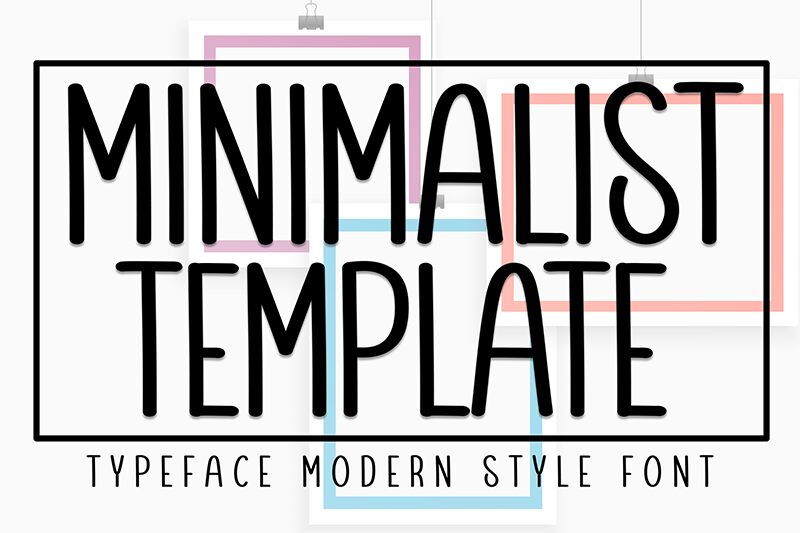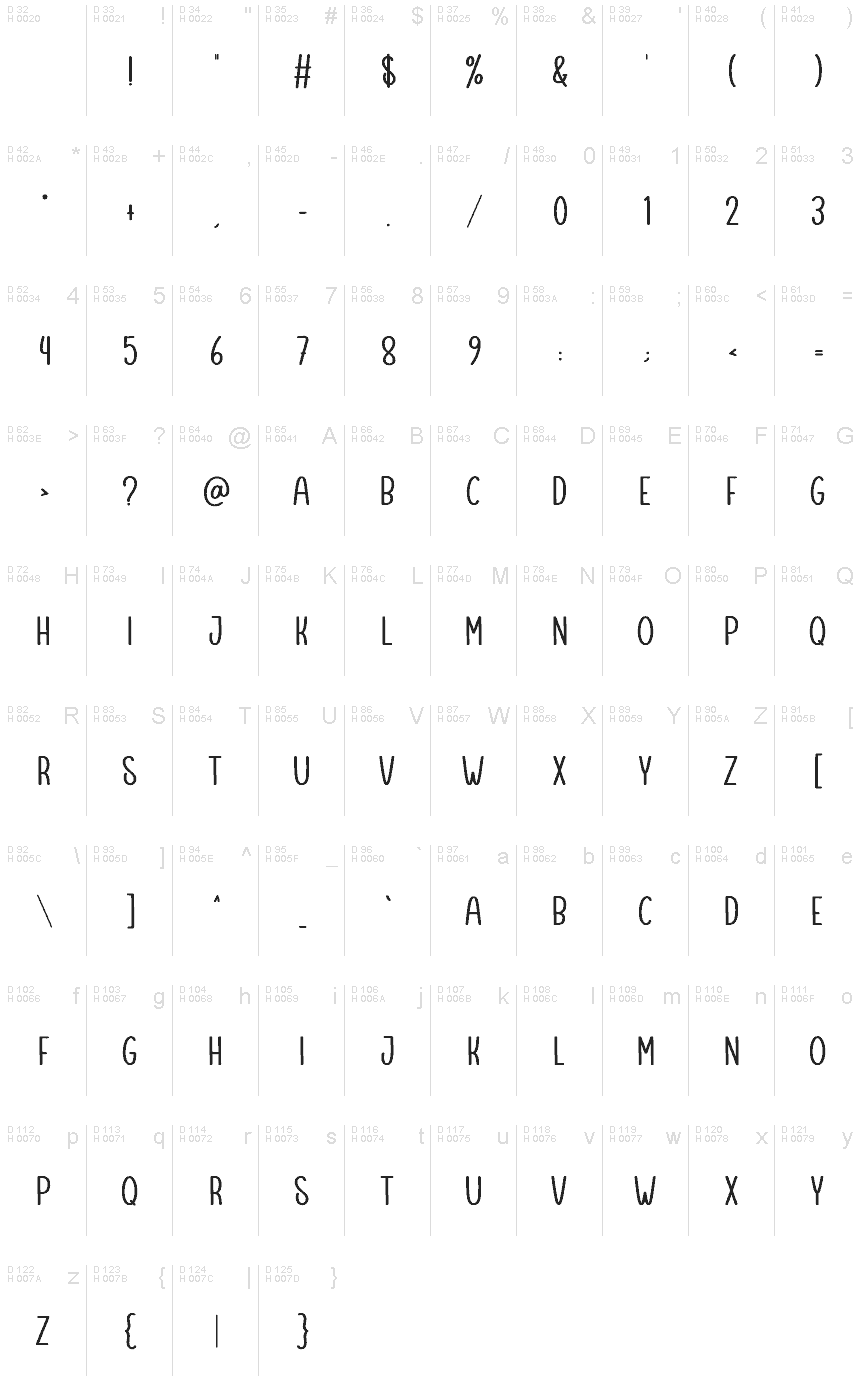
Minimalist Template
Introducing Minimalist Template script font, a condensed and elegant handwritten font brought to you by Andi Moz. The font is ideal for personal and commercial use, such as branding and packaging designs, stationery, quotes, invitation cards, and posters.
Minimalist Template is also perfect to use as a signature for apparel. This freebie can be used with a variety of projects, so what are you waiting for? Check out the font demo below!